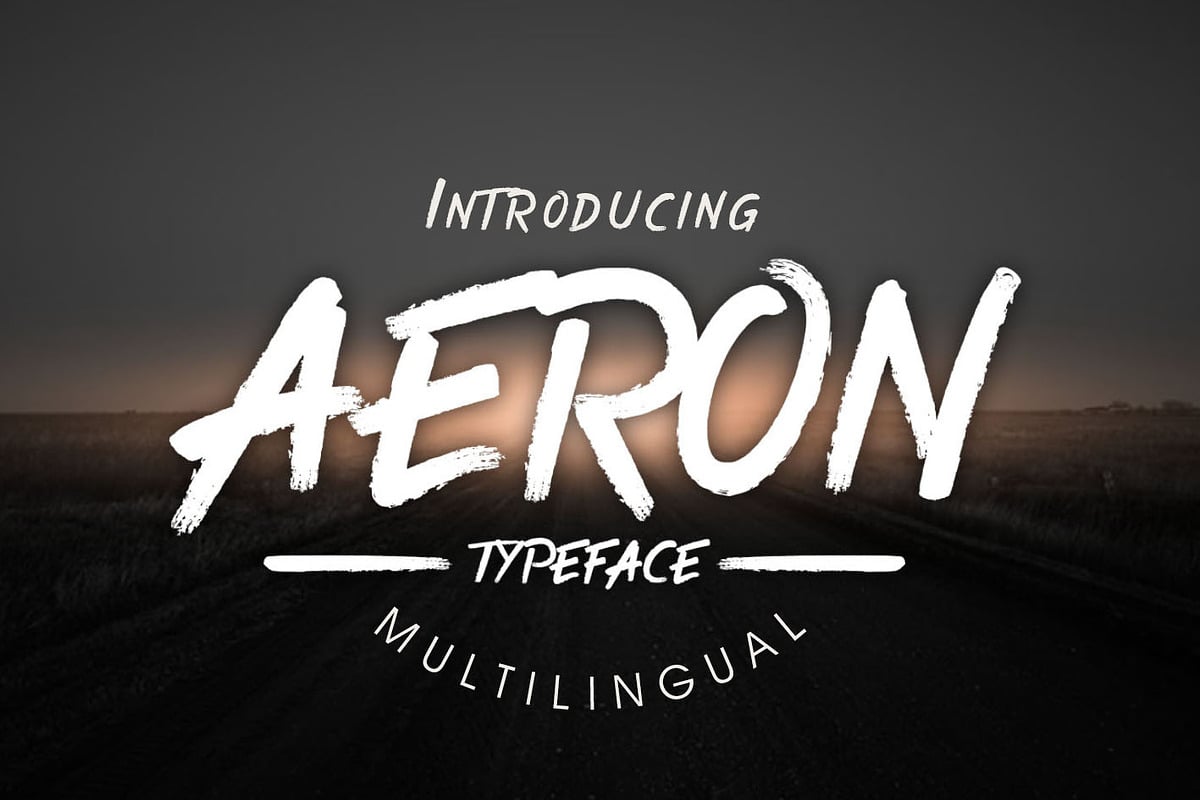
Aeron Typeface
Bold brush stroke typeface perfect for impactful designs that demand attention and creative flair. Aeron Typeface features unique brush strokes that bring energy and personality to your creative projects. This versatile font works beautifully for t-shirt designs, eye-catching posters, memorable logos, and professional design work. The typeface includes complete character sets with uppercase and lowercase letters, numerals, and support symbols for international languages, giving you flexibility a...